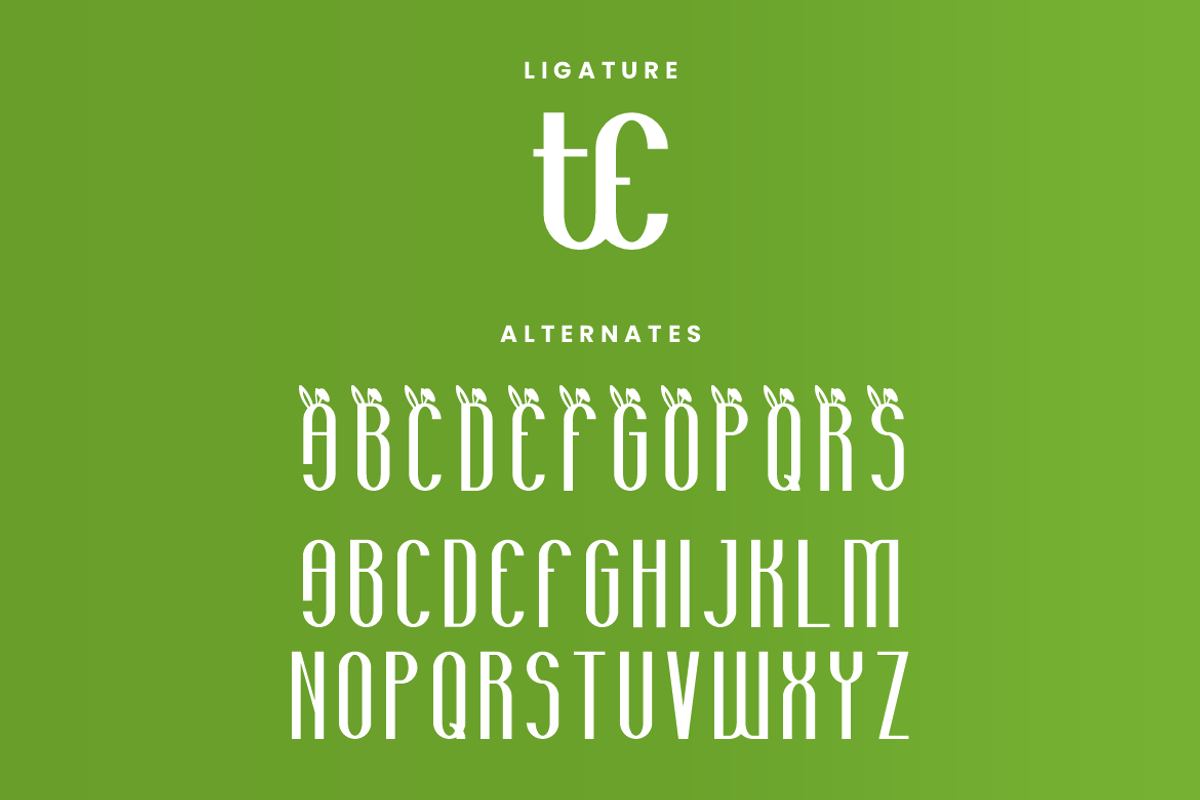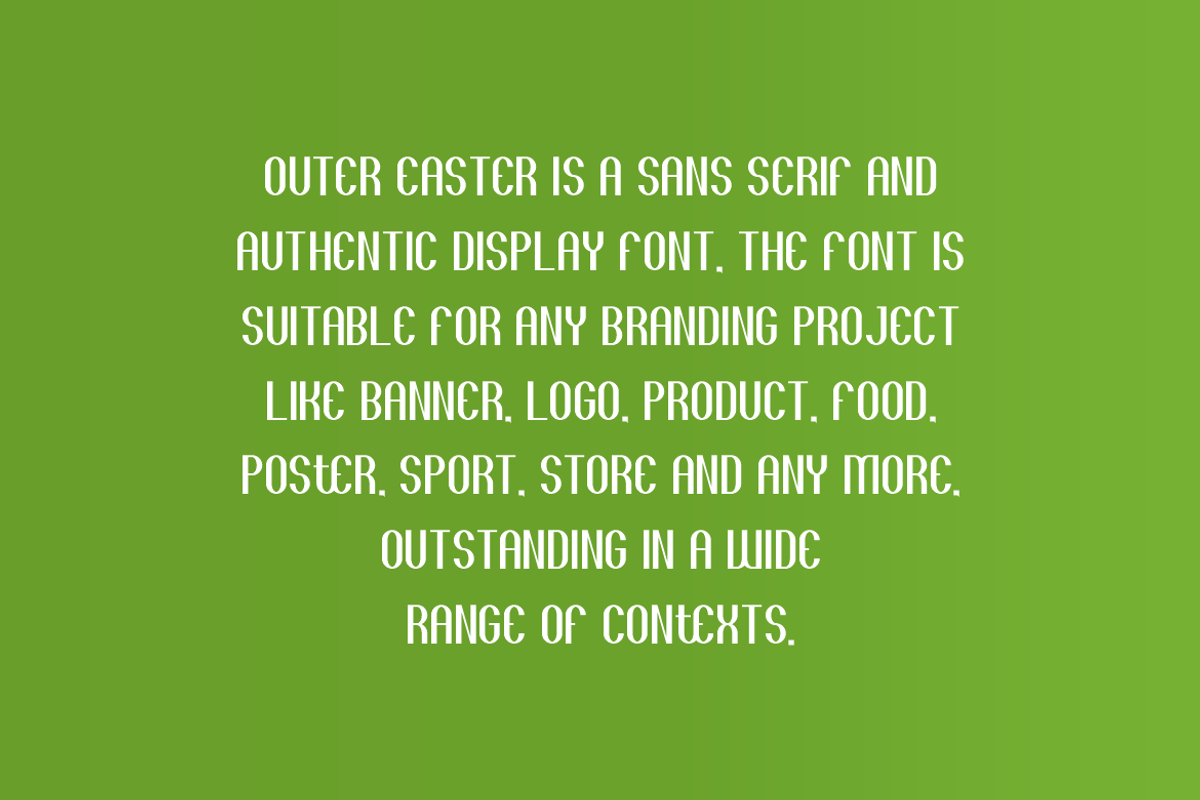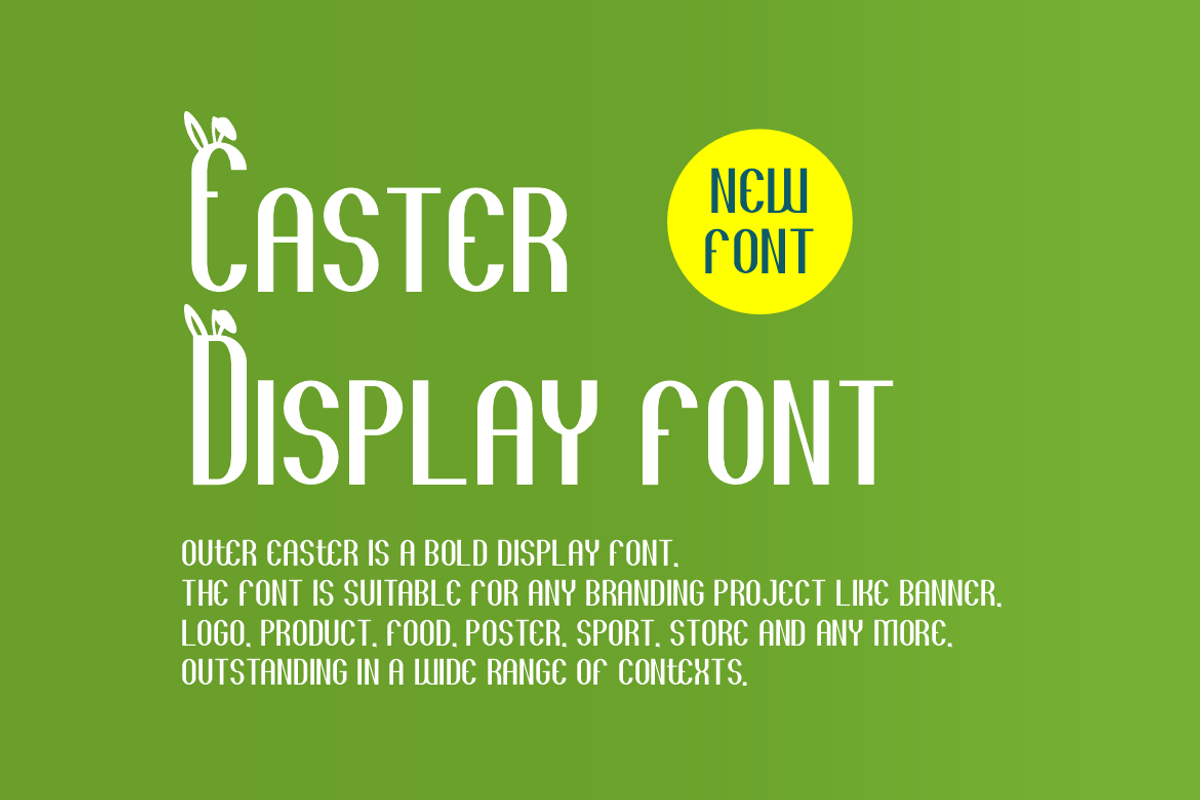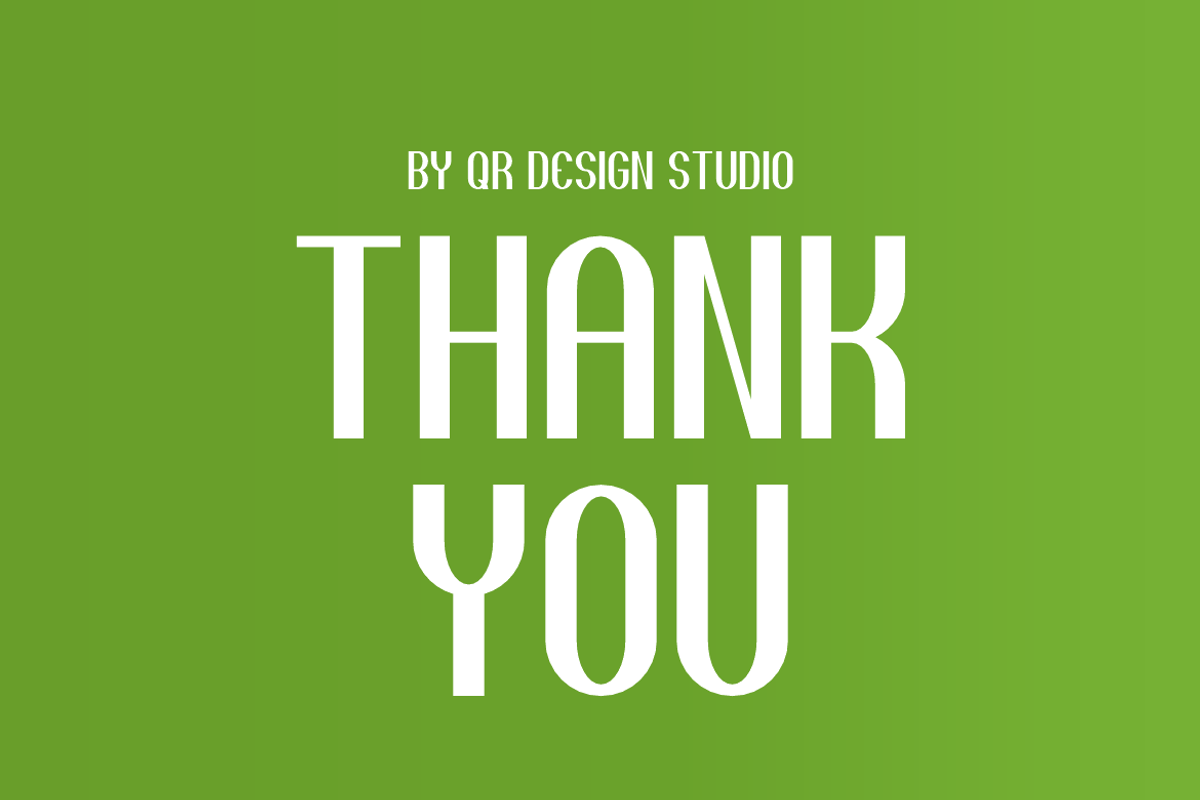
Outer Easter - Typeface Font
Outer Easter Font is a sans serif and authentic display font. The font is suitable for any branding project like poster, logo, sport, and many more. Outstanding in a wide range of contexts.